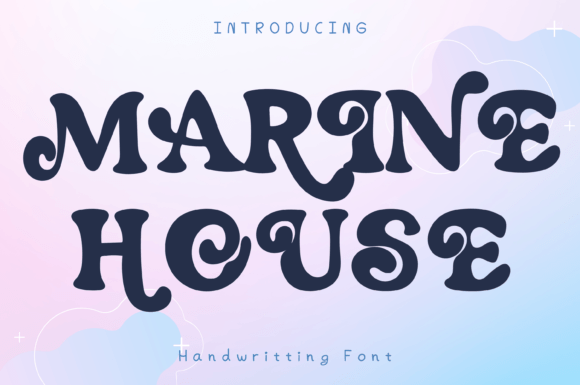
Prepare to set sail on a typographic adventure with Marine House Font, the enchanting display font that will transform your creative endeavors into masterpieces!
Imagine an ocean of possibilities, where every letter is a treasure waiting to be discovered. Marine House Font invites you to dive into a world of whimsy and delight, where your words take on a life of their own.
With its playful curves and charming imperfections, this font is a beacon of individuality. Let its unique character guide your designs, adding a touch of magic to everything it graces. From whimsical invitations to eye-catching posters, Marine House Font will make your creations shine brighter than a lighthouse in the night.
But don't just take our word for it. Join the countless sailors who have already set sail with Marine House Font and witnessed its transformative power firsthand. Whether you're navigating the treacherous waters of an academic paper or charting a course for a creative project, this font will be your steadfast companion, ensuring your message reaches its destination with style and impact.
So hoist the sails of your imagination and embark on a typographic voyage with Marine House Font. Let its whimsical charm ignite your creativity and guide you to shores of design brilliance. Remember, a well-chosen font is not just an accessory; it's a beacon that illuminates your words and sets them apart from the ordinary. Dive into the depths of Marine House Font today and discover the treasures that await!